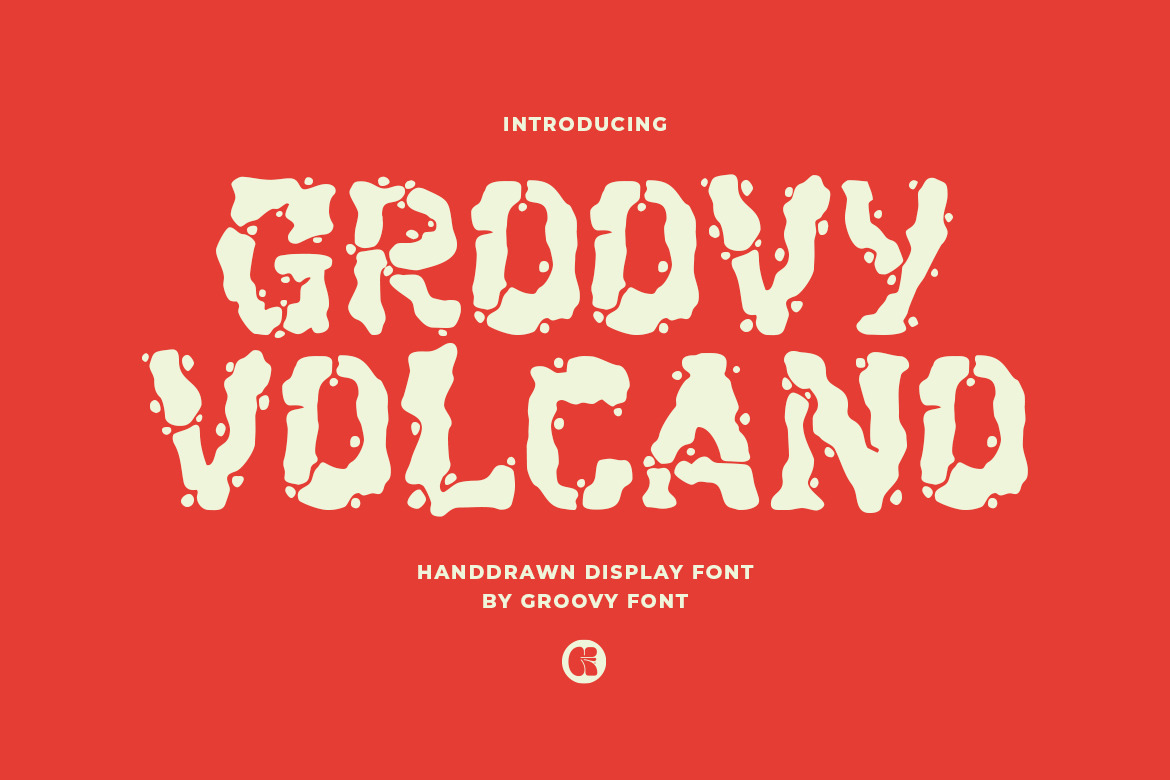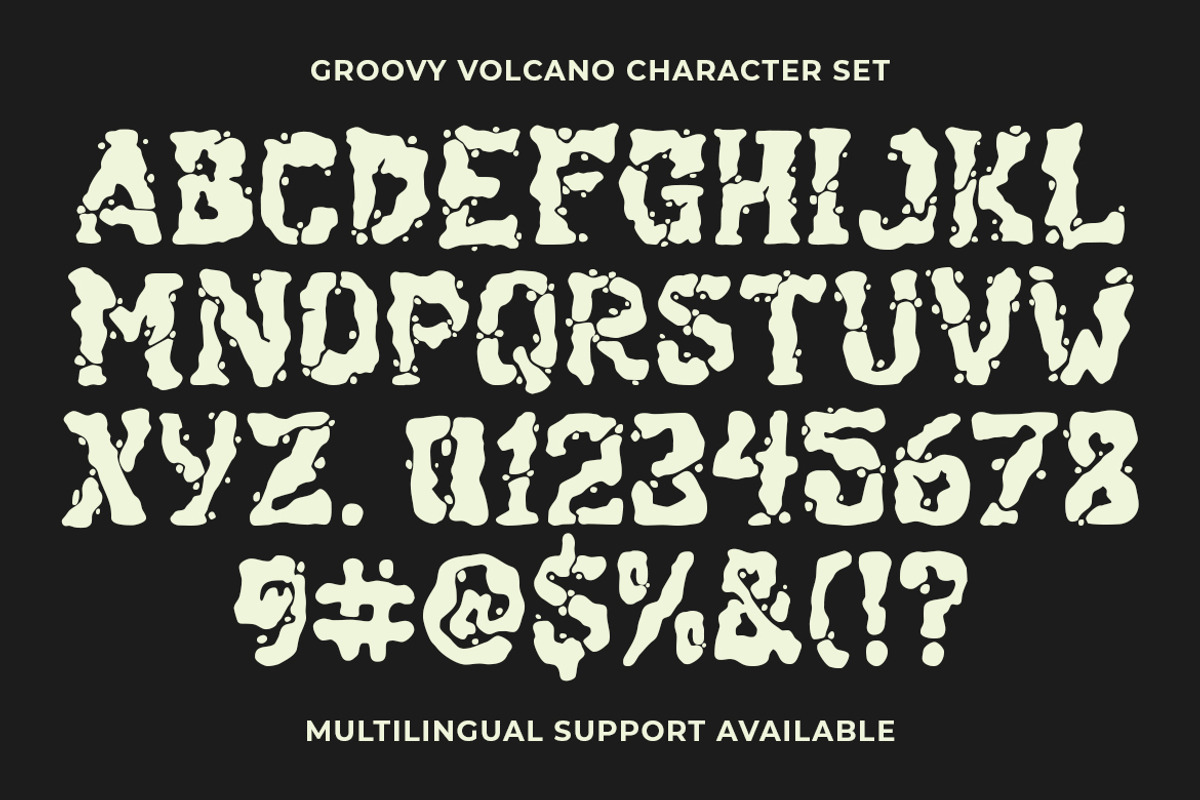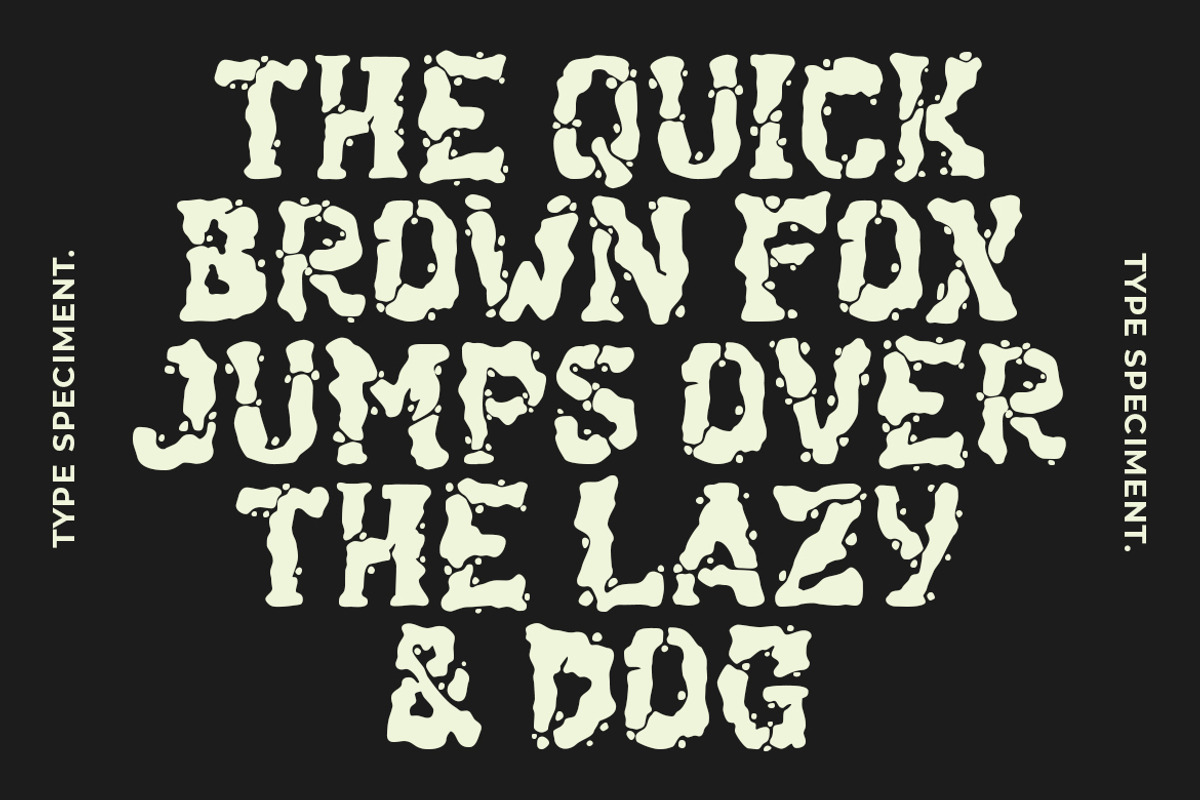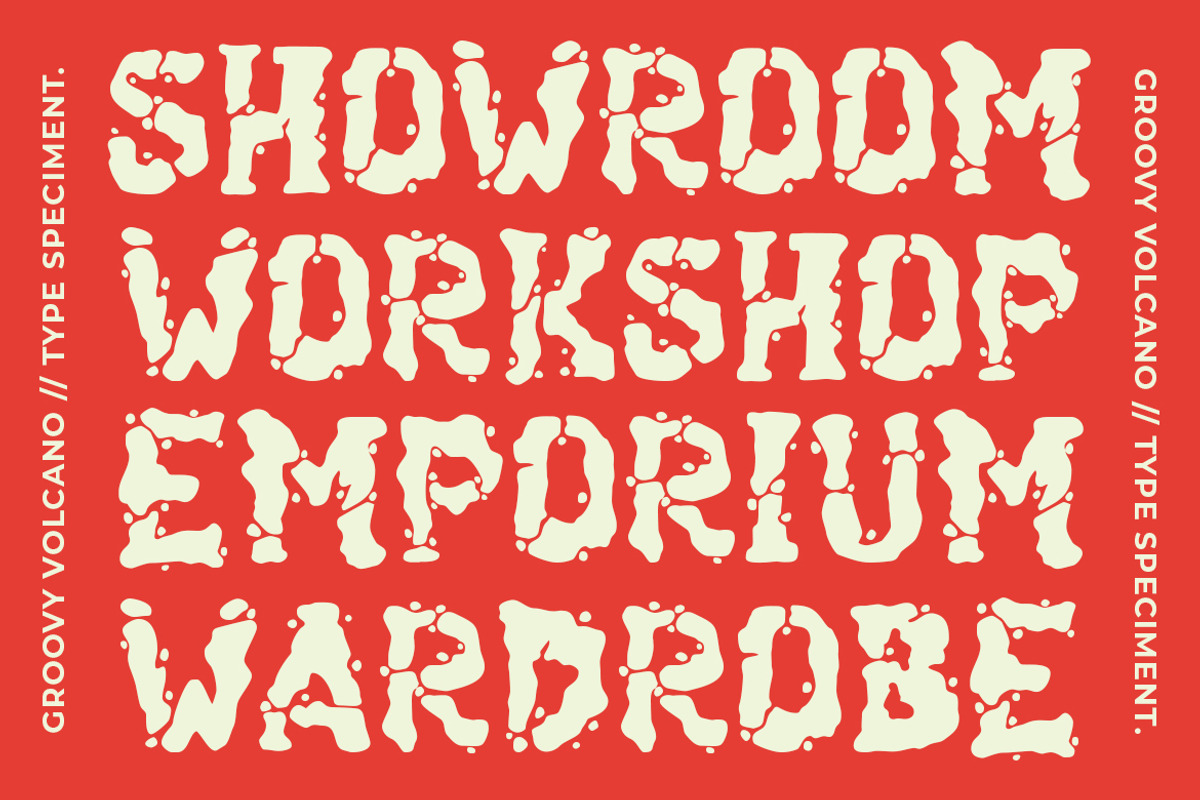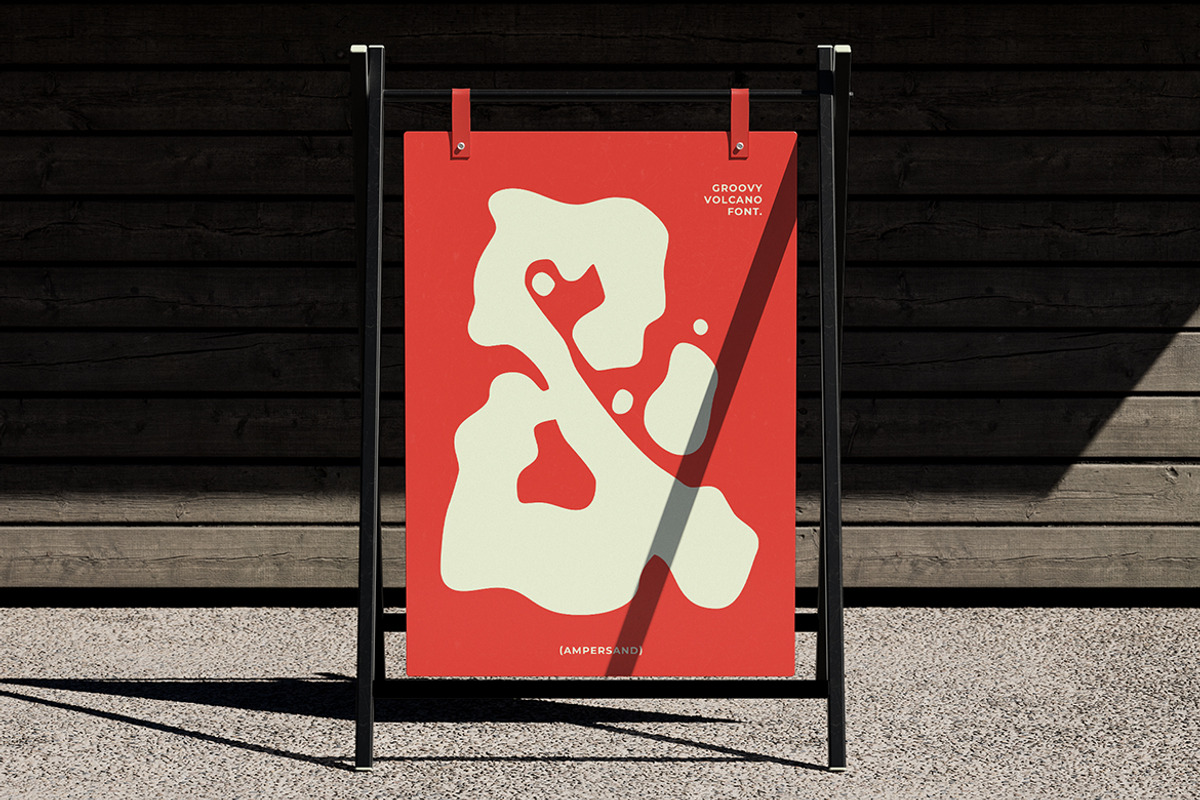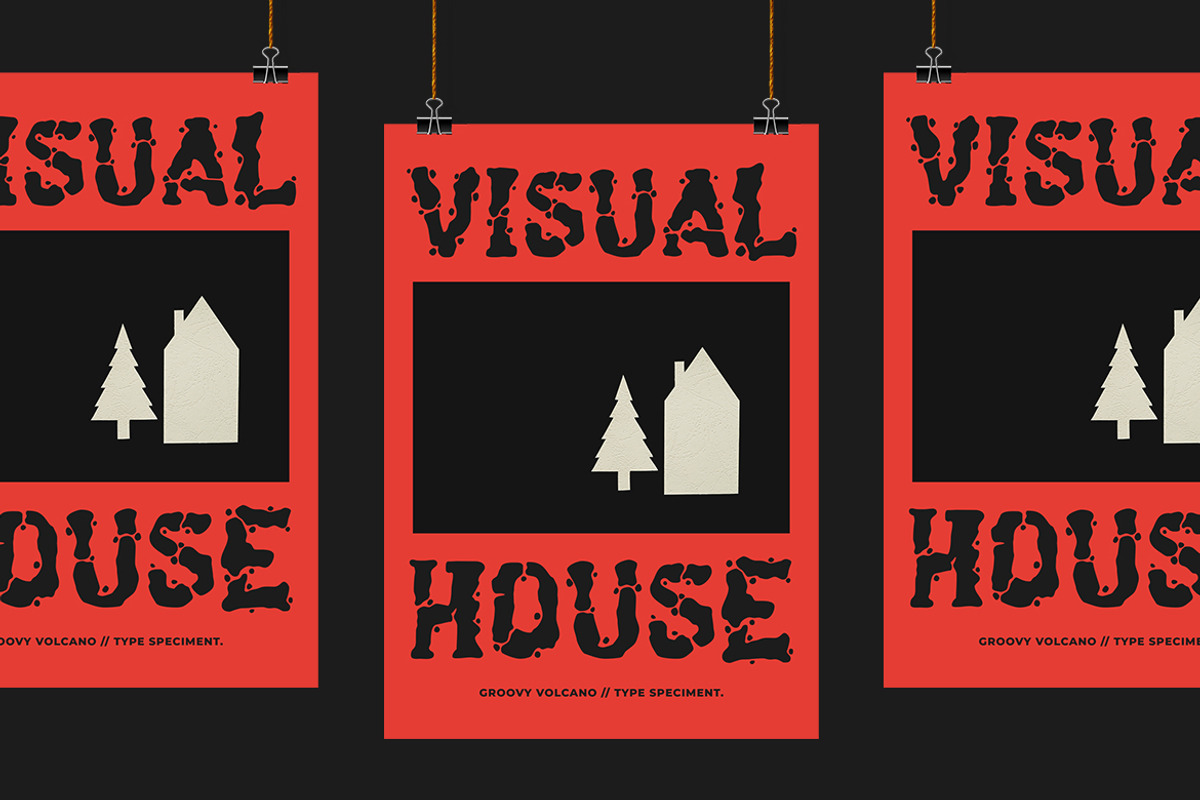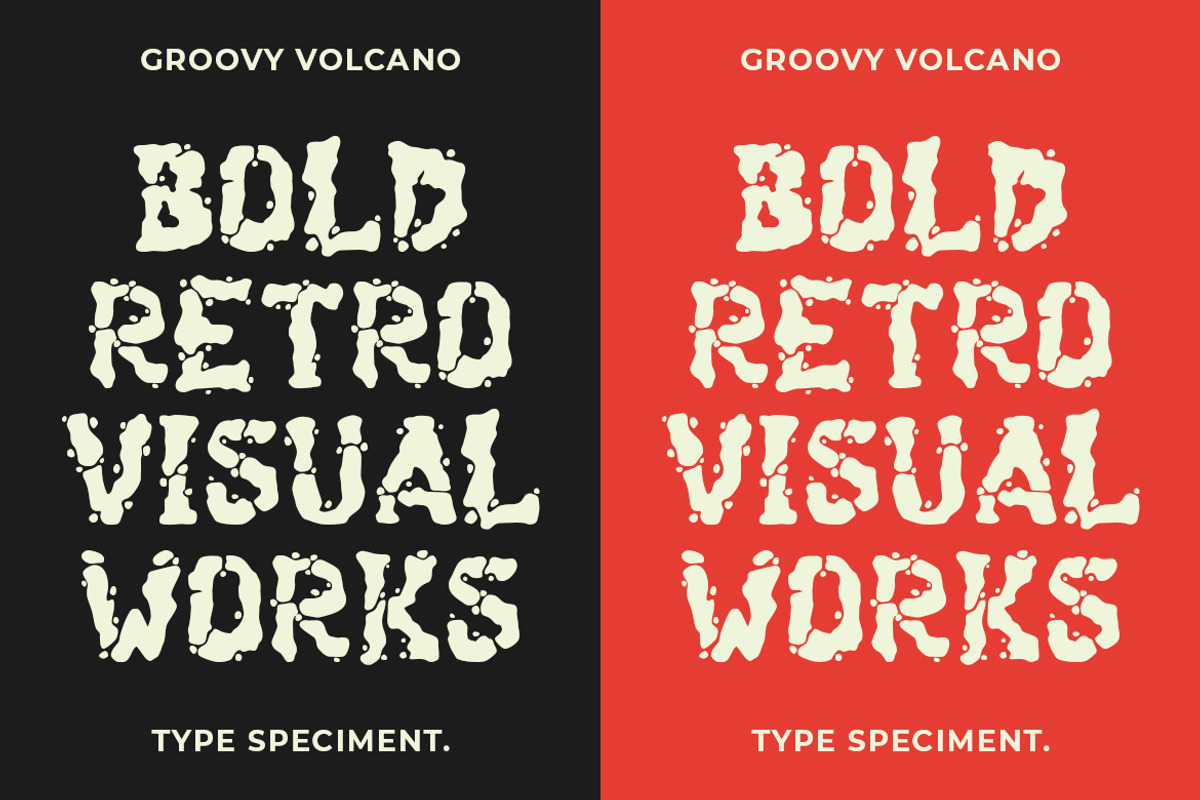
GF Volcano - Handdrawn Display Font
Groovy Volcano is a hand-drawn display font that embodies the rough and rugged appearance of cracked rocks or weathered walls.
The font is ideal for creating eye-catching poster headlines and other design elements.